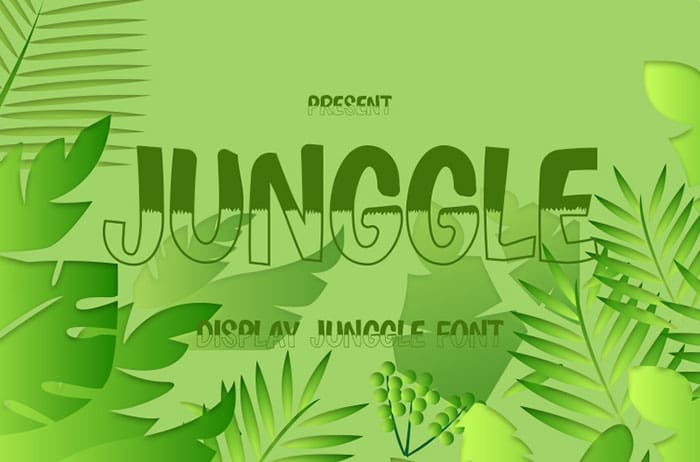
Junggle Display Font
Junggle is a fun display font. This enchanting display font will turn any creative idea into a true standout. Get creative with its childlike playfulness, and use it to brighten up any kids and school project! Designed this font by Inermedia Studio. You can also search more freeĀ Display Fonts.